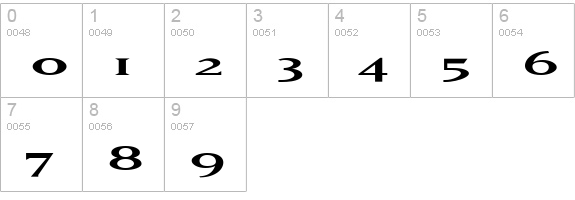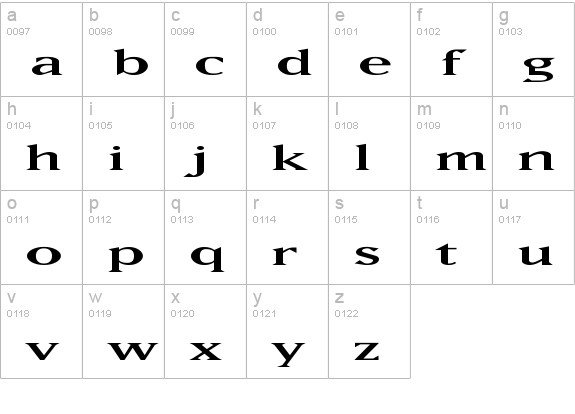
STICadillacWide Font Details
STICadillacWide font is a stylish and elegant typeface that exudes sophistication and class. With its sleek lines and modern design, this font is perfect for adding a touch of luxury to any project. The wide spacing between the letters gives it a unique and eye-catching look that is sure to make a statement. What's even better is that STICadillacWide font is available for free download at FontsMarket.com. You can easily add this stunning font to your collection and use it in a variety of creative projects without having to spend a penny. Whether you're designing a logo, creating a poster, or crafting a website, STICadillacWide font is the perfect choice to elevate your design and make it stand out from the crowd. Download it now and unleash your creativity with this beautiful and free font.